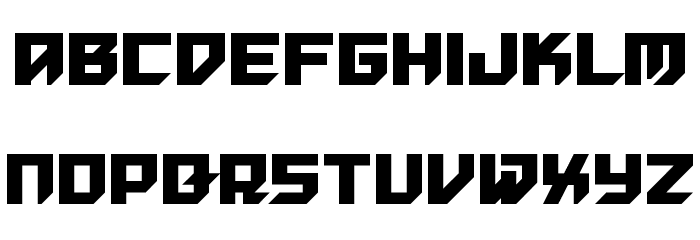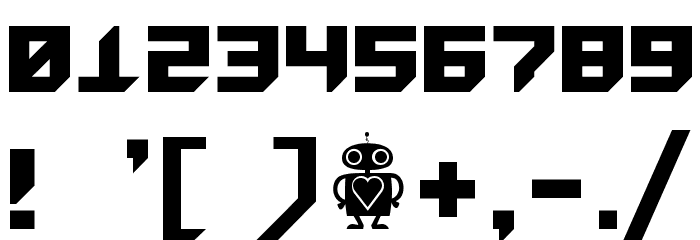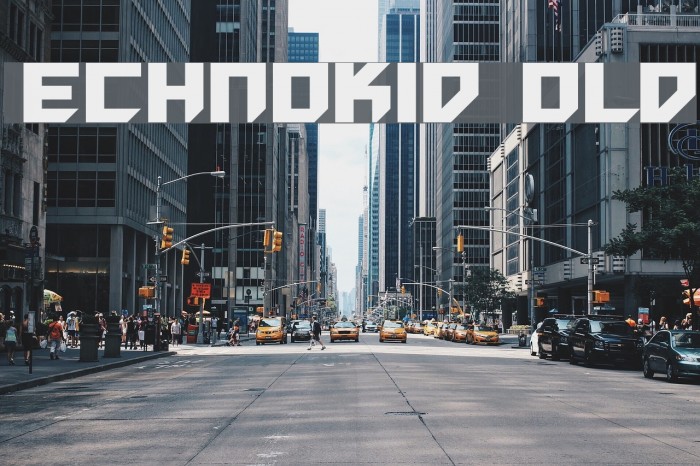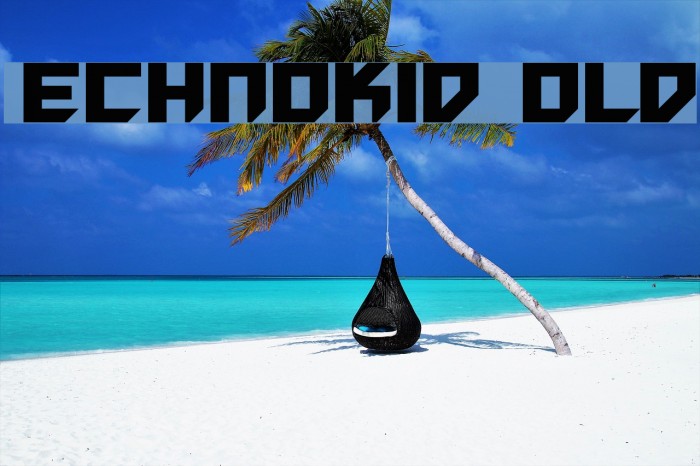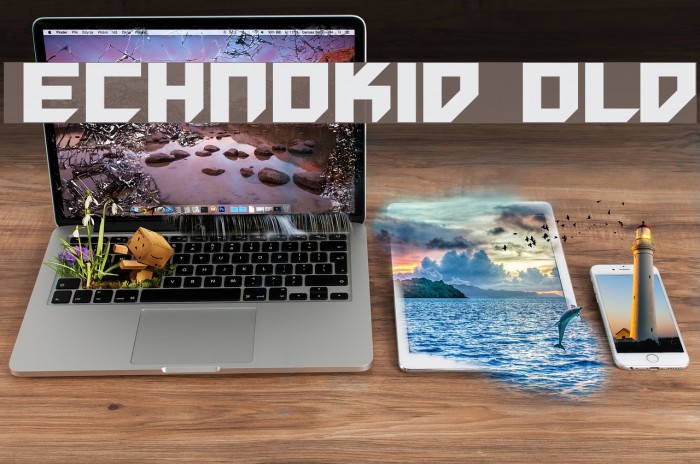
ET Technokid Bold Font
This font features a bold, futuristic design with angular, geometric shapes that give it a distinct, tech-inspired look. The characters are blocky and robust, with sharp edges and a uniform thickness that conveys strength and modernity. The uppercase letters are particularly striking, with a consistent height and width that create a cohesive appearance. The numerals and special characters maintain the same bold style, ensuring a seamless integration across different uses. This font is ideal for projects that require a strong, contemporary aesthetic, such as technology branding, video game titles, or sci-fi themed designs.
A bold, futuristic font with angular, geometric shapes and a tech-inspired look.
- Proposed Projects: Ideal for technology branding, video game titles, sci-fi themed designs, and modern posters.